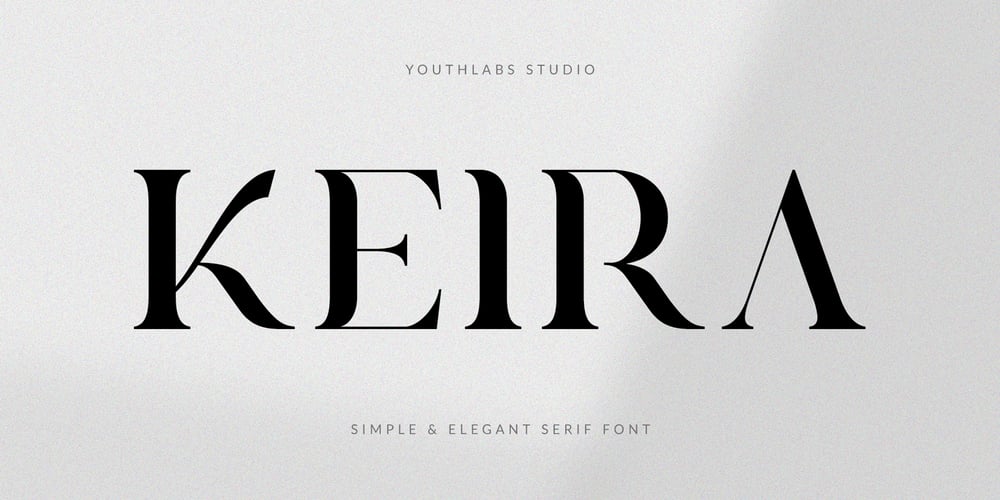
Keira Font Family was designed by Fathi Al Ghazi and published by Youthlabs. Keira contains 1 styles and family package options. Introducing Keira Serif Font – A Brand New Serif Font with Simple and Elegant Look, More Opentype Feature, more neat curvesKeira Serif Font Inspired by Simple and Elegant Typography. Keira Font is a very versatile font. you can use this font to various design. Basics can improve more than 200 alternative character.What’s the Feature ? Uppercase & Lowercase Alternate 91 Language Support Ligatures Stylistic Alternate